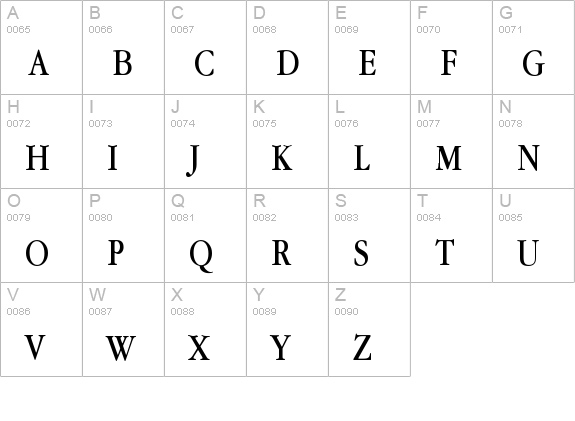
Apple Garamond BT Book is a comfortable, highly readable variant in the Apple typeface family \xE2\x80\x94 well suited to long-form body text, articles, and editorial content.
Apple Garamond BT Book is a timeless and elegant font that exudes sophistication and charm. Its classic design features delicate serifs and graceful curves, making it a perfect choice for projects that require a touch of refinement. The balanced proportions and clean lines of Apple Garamond BT Book ensure readability and legibility across various mediums. One of the best things about Apple Garamond BT Book is that it is available for free download at FontsMarket.com. This means that you can easily access this beautiful font without any cost, making it a convenient and budget-friendly option for your design needs. Whether you are working on a print project, a digital design, or anything in between, Apple Garamond BT Book will elevate the visual appeal of your work with its timeless elegance. Download it today and add a touch of sophistication to your projects.